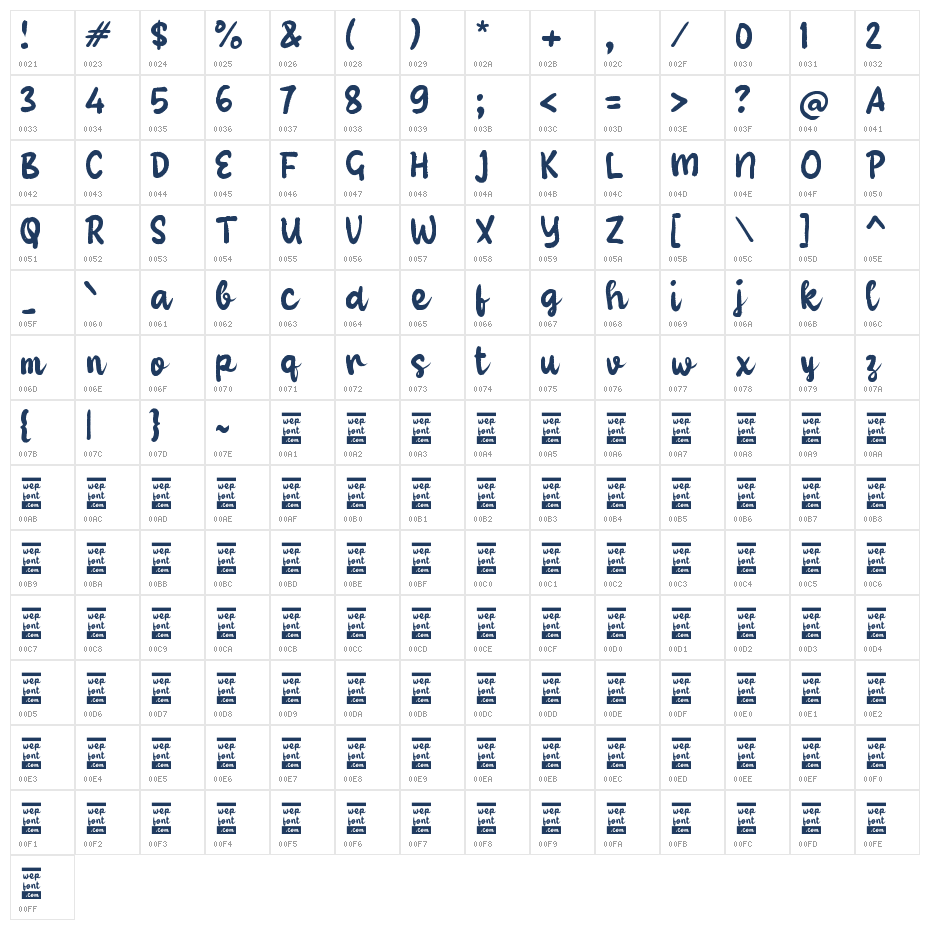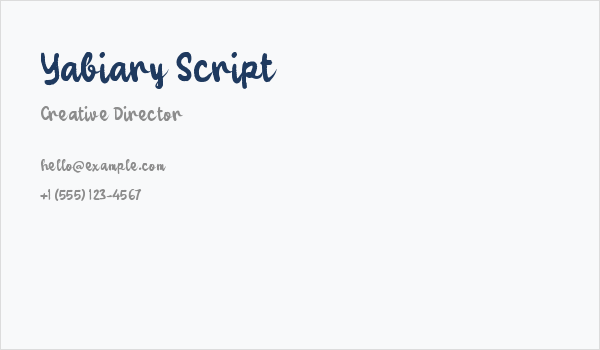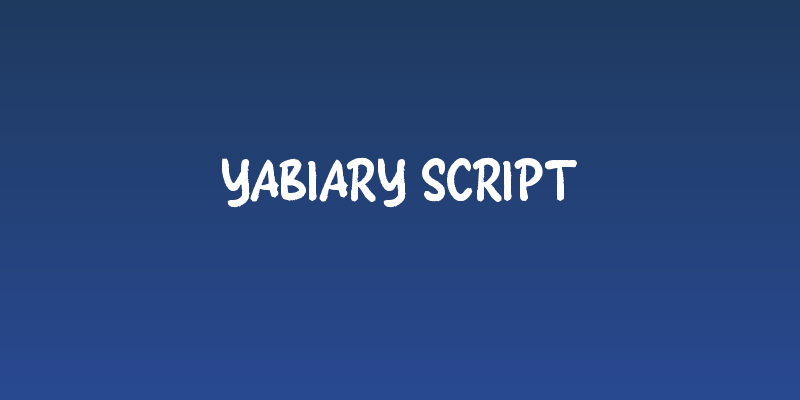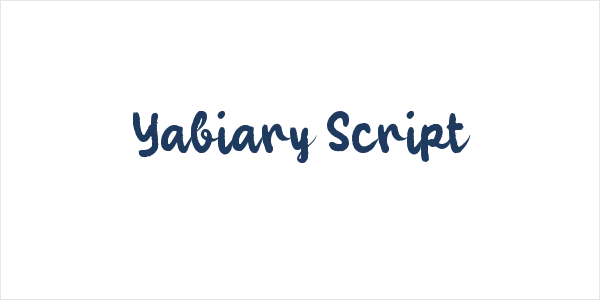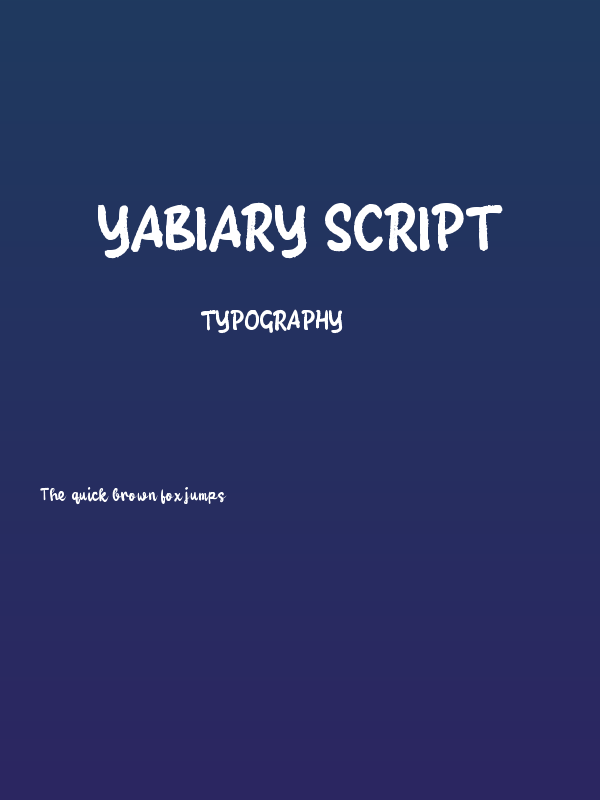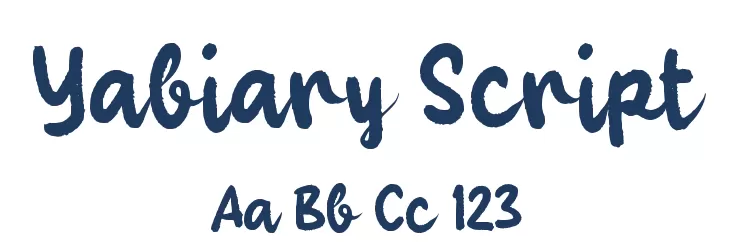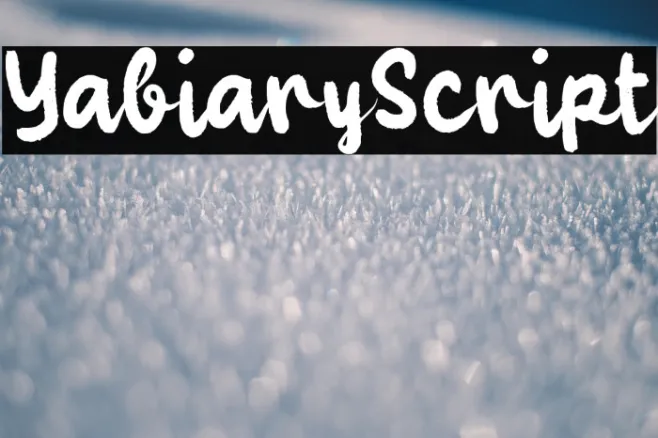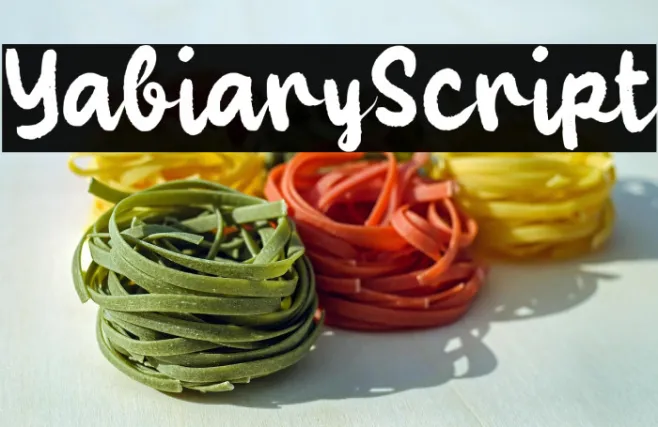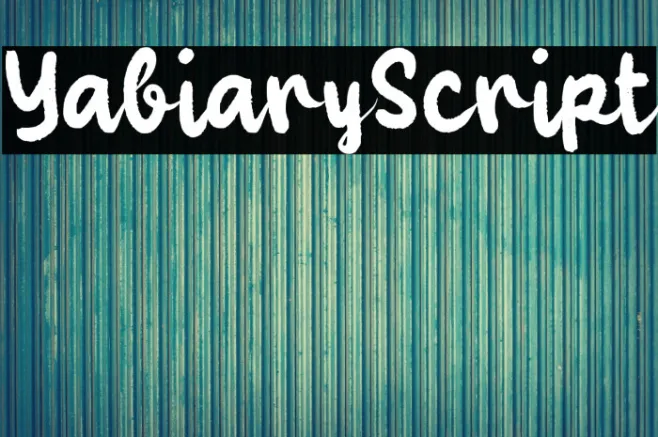
Yabiary Script Font
Yabiary Script Description
A playful, handwritten script font with a casual and friendly appearance, featuring rounded edges and a slightly irregular stroke width.
| Overall Style | Casual, Friendly, Handwritten |